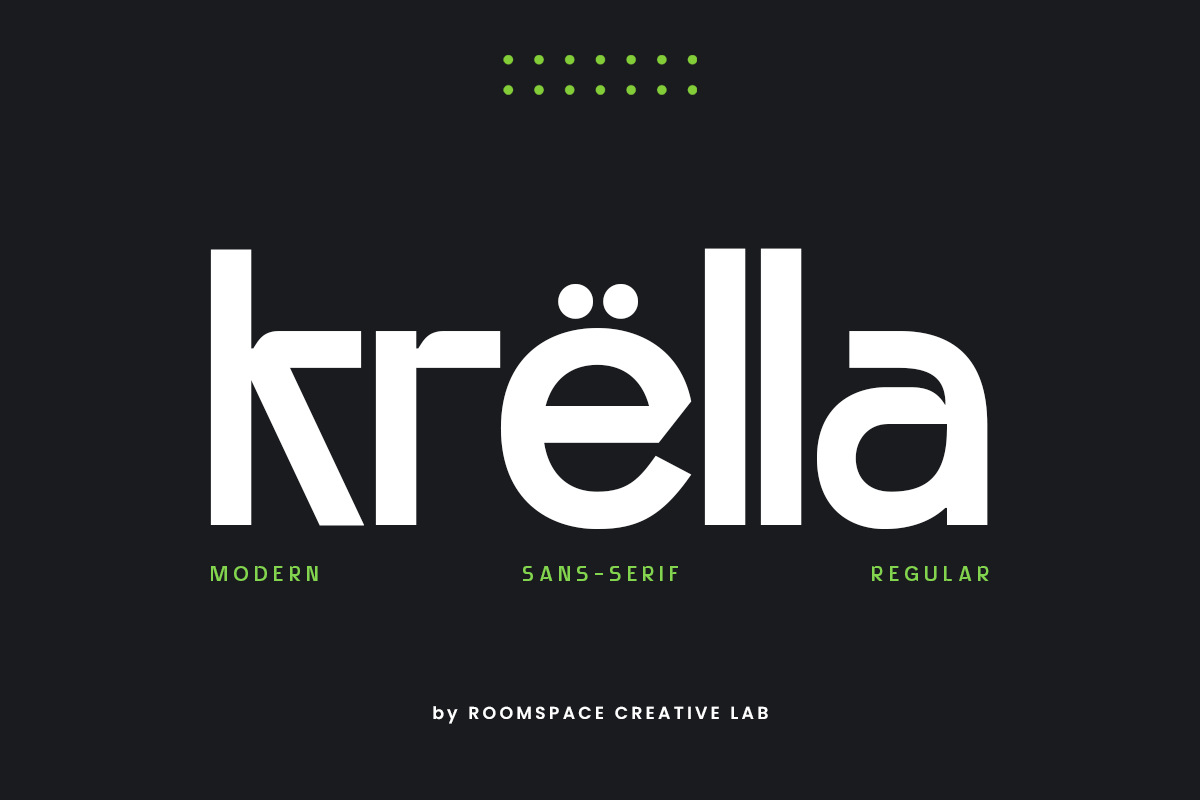
Krella - Modern Logo Font Free Download
Krella – Modern Logo Font Free Download is a sleek and minimalist typeface designed specifically for branding, logo design, product packaging, and high-end editorial layouts. With clean lines and a contemporary aesthetic, Krella delivers a professional and stylish look that’s ideal for modern visual identities. Please note that you must purchase this font for commercial use, but it is available as a free download for testing purposes. Make your brand stand out with confidence and clarity using Krella – Modern Logo Font Free Download, and create bold statements with elegant simplicity.